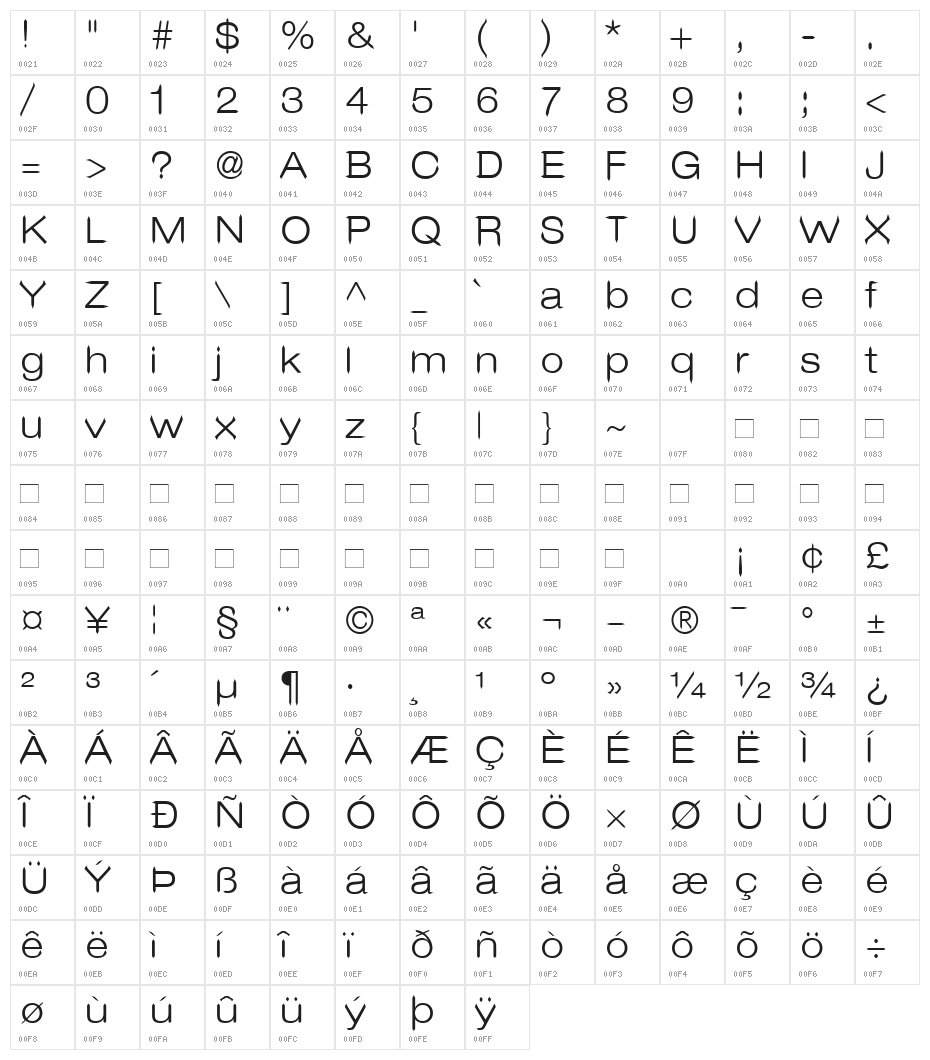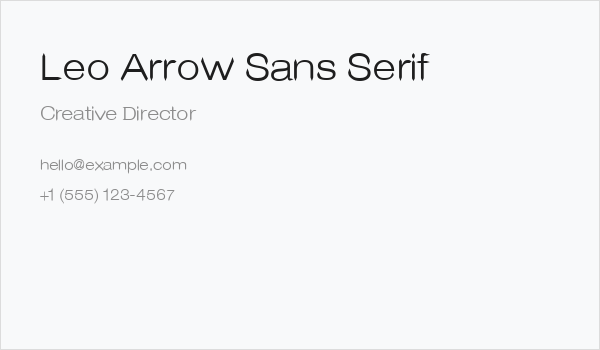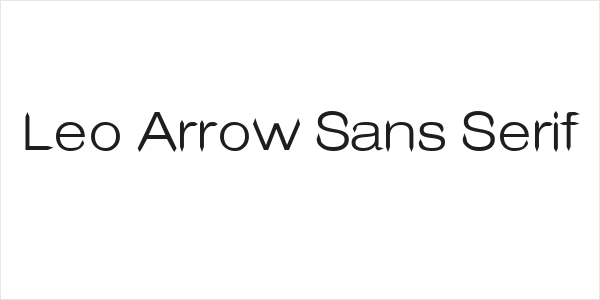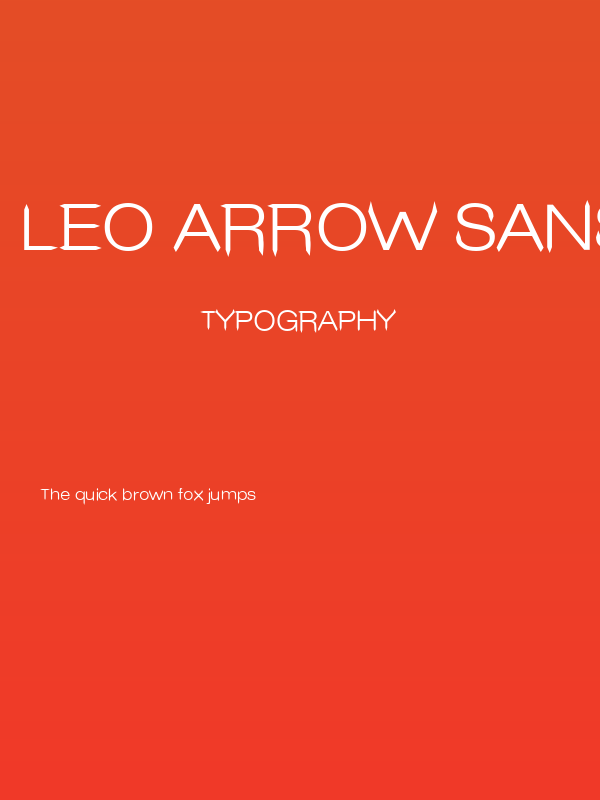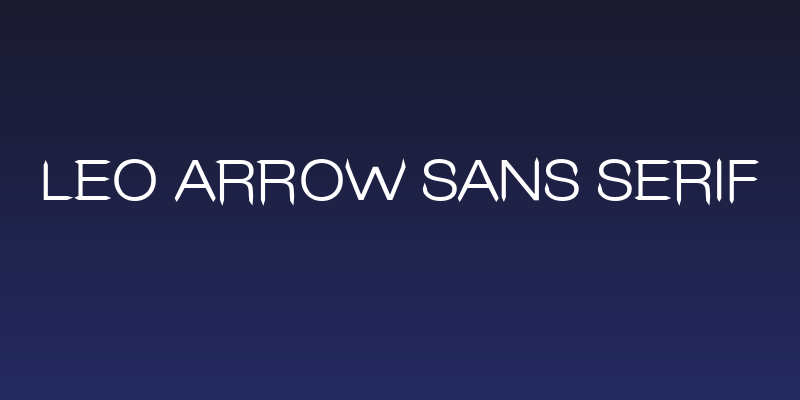
Leo Arrow Sans Serif Font
Leo Arrow Sans Serif Description
This font features a clean and modern sans-serif design with a geometric structure. The characters are well-balanced, with a consistent stroke width that provides a uniform appearance. The uppercase letters are bold and striking, while the lowercase letters maintain a friendly and approachable look. The numerals are clear and legible, making them suitable for various applications. Special characters are included, offering versatility for different uses. The overall style is minimalistic, making it ideal for contemporary design projects.